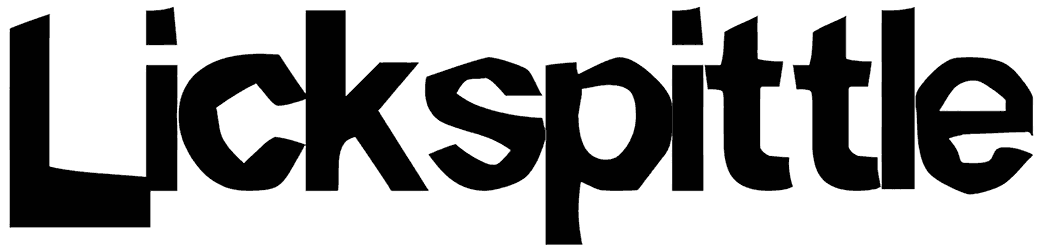
Lickspittle Font
When, for the first time, you lay your eyes on Lickspittle, the first words that come to your mind are crooked, bold, and disfigured. Fonts like this are considered stone fonts because of their unique shape, and they are perfect for cartoons, kids’ storybooks, kindergarten banners, and toy packaging.